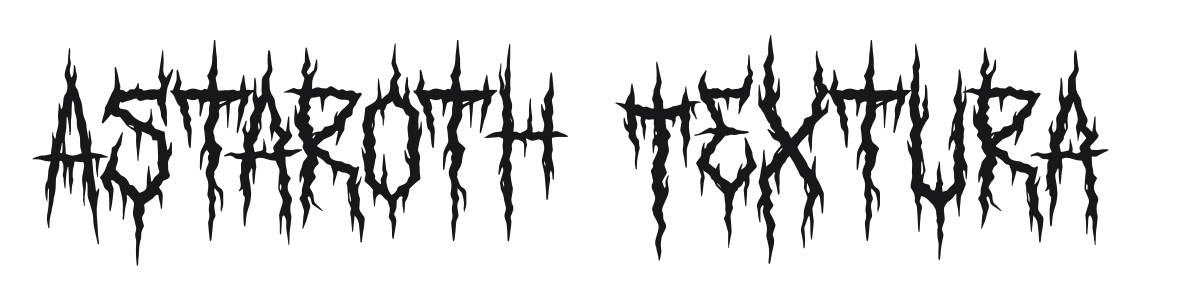
Astaroth Textura
Astaroth Textura is a blackletter display font built for the extreme end of heavy metal aesthetics. Thick vertical strokes erupt into sharp, flame-like spikes at the top and bottom, giving each character the look of a hand-drawn black metal band logo. The tight condensed texture reads as a dense, threatening mass at display sizes.